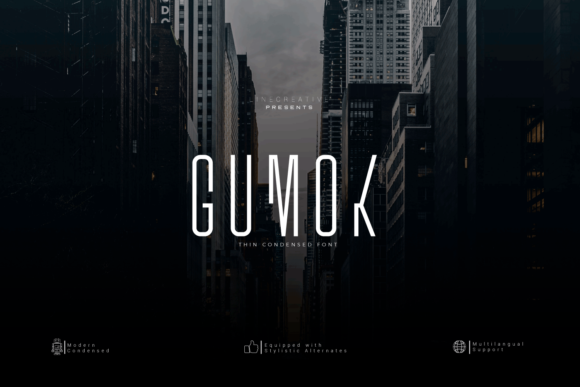
Gumok Font: Elevate Your Designs with a Cool, Thin, and Trendy Touch
In the world of typography, fonts play a crucial role in making or breaking a design. A well-chosen font can instantly elevate your project, making it more visually appealing and engaging. If you’re on the lookout for a font that exudes modernity and sophistication, look no further than Gumok Font. This cool, thin, and trendy display font is perfect for designers and crafters seeking to add a unique touch to their work.
What is Gumok Font?
Gumok Font is a stylish and contemporary display font designed to make a statement. Its slender lines and sleek appearance make it an ideal choice for a wide range of design projects, from web designs and business cards to posters, flyers, and more. With its modern aesthetic, Gumok Font is sure to capture the attention of your audience and leave a lasting impression.
Key Features of Gumok Font
- Cool and Trendy: Gumok Font boasts a unique and fashionable design that’s perfect for designers who want to stay ahead of the curve.
- Thin and Sleek: The font’s slender lines create a clean and sophisticated look that’s ideal for a variety of design applications.
- Display Font: Gumok Font is specifically designed as a display font, making it perfect for headlines, titles, and other attention-grabbing elements.
- Modern Aesthetic: The font’s modern design ensures that your projects will have a fresh and contemporary feel.
Uses for Gumok Font
Gumok Font’s versatility makes it suitable for a wide range of design projects, including:
- Web Designs: Add a touch of modernity to your website with Gumok Font, perfect for headings, titles, and other design elements.
- Business Cards: Make a lasting impression with Gumok Font on your business cards, ideal for entrepreneurs, freelancers, and small business owners.
- Posters and Flyers: Create eye-catching posters and flyers with Gumok Font, perfect for advertising, promotions, and events.
- Social Media Graphics: Elevate your social media presence with Gumok Font, great for creating engaging graphics, headers, and posts.
Why Choose Gumok Font?
With so many fonts available, why choose Gumok Font? Here are just a few reasons:
- Unique Design: Gumok Font’s distinctive design ensures that your projects will stand out from the crowd.
- Easy to Read: Despite its slender lines, Gumok Font remains clear and easy to read, making it perfect for a variety of design applications.
- High-Quality: Gumok Font is a high-quality font designed to deliver exceptional results, even at large sizes.
Tips for Using Gumok Font
To get the most out of Gumok Font, follow these tips:
- Use it Sparingly: Gumok Font is a display font, so use it sparingly to create a greater impact.
- Pair it with Other Fonts: Experiment with pairing Gumok Font with other fonts to create a unique and visually appealing design.
- Adjust the Size: Don’t be afraid to experiment with different sizes to find the perfect balance for your design.
Gumok Font is a cool, thin, and trendy display font that’s perfect for designers and crafters seeking to add a unique touch to their work. With its modern aesthetic, versatility, and high-quality design, Gumok Font is an excellent choice for a wide range of design projects. Whether you’re working on a web design, business card, or social media graphic, Gumok Font is sure to elevate your design and leave a lasting impression.